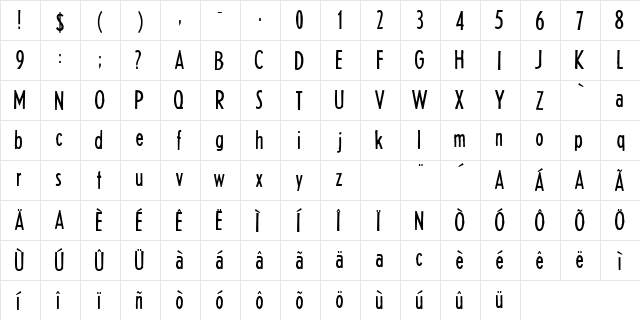
Headline Two HPLHS
Design Context for Headline Two Typeface
Headline Two is a composed and adaptable typeface that performs quietly and consistently across a wide range of design contexts.